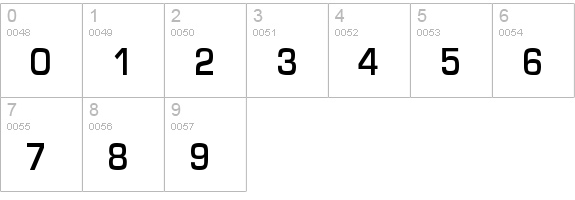
EurostileCnd-Bo Font Details
EurostileCnd-Bo is a modern and sleek font that exudes a bold and futuristic style. With its condensed design and strong geometric shapes, this font is perfect for creating eye-catching headlines, logos, and posters. The clean lines and sharp edges give EurostileCnd-Bo a contemporary and professional look that is sure to make any design stand out. The best part about EurostileCnd-Bo is that it is available for free download at FontsMarket.com. This means you can easily access this stylish font for your projects without any cost. Whether you are a graphic designer, marketer, or hobbyist, EurostileCnd-Bo offers a versatile and striking typeface that will elevate your designs to the next level. Get your hands on EurostileCnd-Bo today and bring a touch of modern sophistication to your creations.